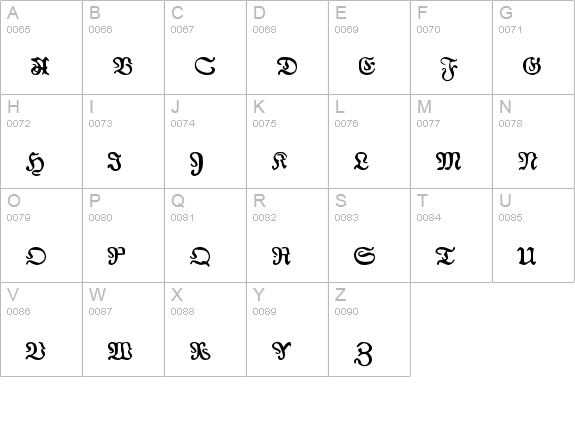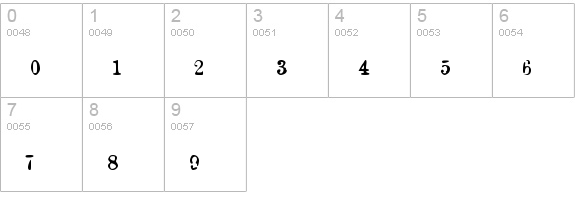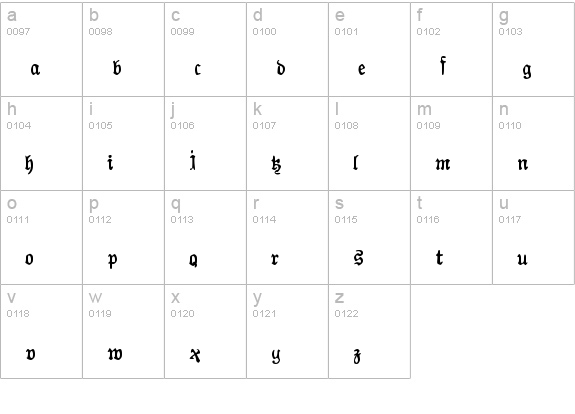
AuldMagick Bold Font Details
AuldMagick Bold is a strong, high-contrast variant in the AuldMagick typeface family \xE2\x80\x94 well suited to headlines, attention-grabbing titles, and strong calls-to-action.
AuldMagick Bold font is a captivating and enchanting typeface that exudes a sense of mystical allure. Its bold and commanding presence immediately draws attention and leaves a lasting impression. With its intricate and ornate letterforms, AuldMagick Bold is perfect for adding a touch of elegance and sophistication to any design project. This extraordinary font captures the essence of ancient magick and brings it to life on the page. Each letter is meticulously crafted, featuring delicate curves and intricate details that evoke a sense of mystery and wonder. AuldMagick Bold is not just a font; it is a portal to a world of enchantment and imagination. One of the most remarkable aspects of AuldMagick Bold is that it is freely available to download at FontsMarket.com. This means that designers and creatives from all walks of life can access this exceptional font without any cost. Whether you are a professional graphic designer or an aspiring artist, AuldMagick Bold empowers you to add a touch of magick to your creations without breaking the bank. Whether used in branding, advertising, packaging, or editorial design, AuldMagick Bold will captivate your audience and transport them to a realm of wonder and awe. Its versatility allows it to shine in both digital and print mediums, ensuring that your designs are always infused with a touch of enchantment. Let AuldMagick Bold be your guide as you embark on a creative journey filled with limitless possibilities. Unleash your imagination and let this extraordinary font elevate your designs to new heights. Download AuldMagick Bold for free at FontsMarket.com and unlock the power of magick in your typographic creations.